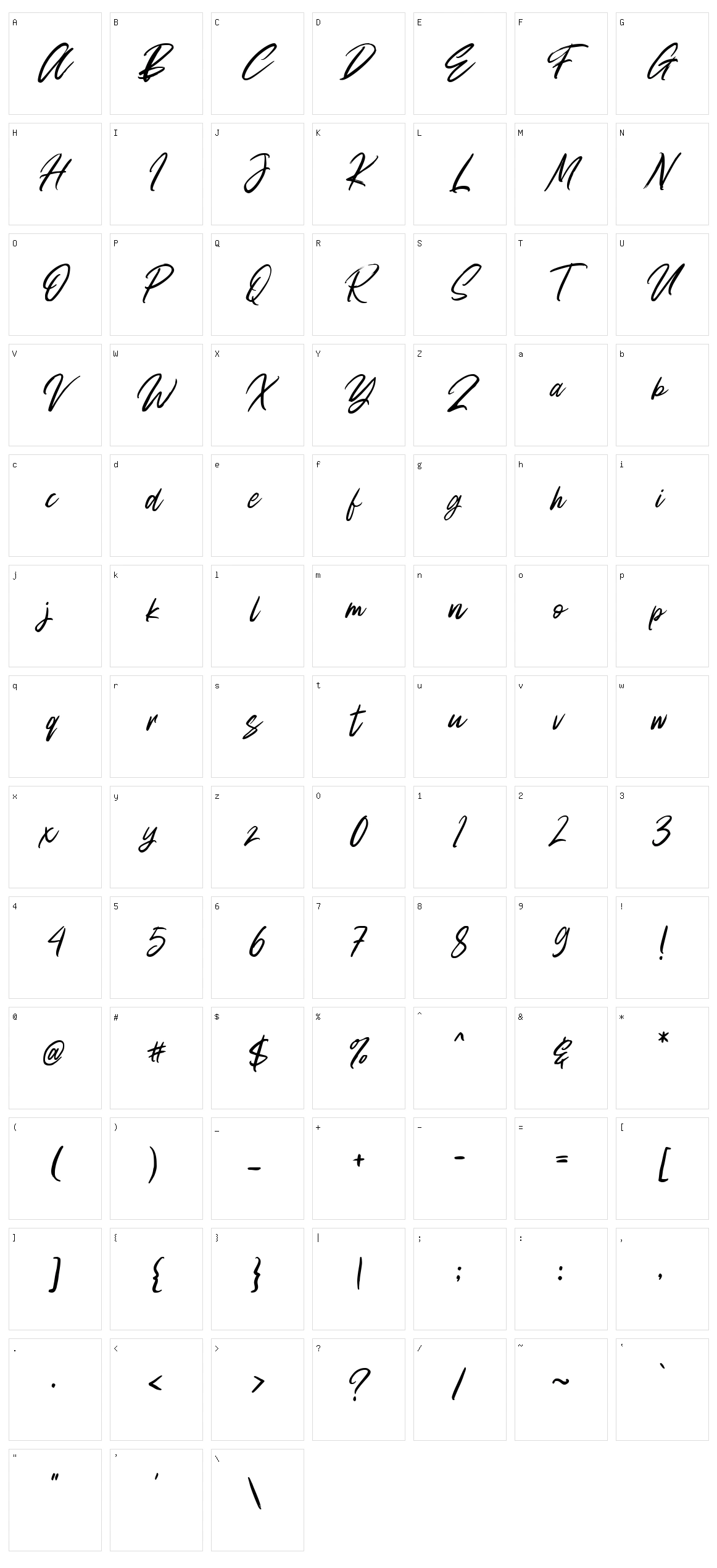
The free font Besttiny is carefully designed by Weape Studio, showcasing a thoughtful balance of creativity and usability and falls under the Script font style. When you download the ZIP file, it contains only 31.66 KB of font files, making it lightweight and quick to download. Please review the license details below to understand permitted usage and distribution rights. If license information is not available, we recommend using this font for personal projects only or contacting the author directly for commercial usage permissions.
Besttiny - 2019 by Weape Design